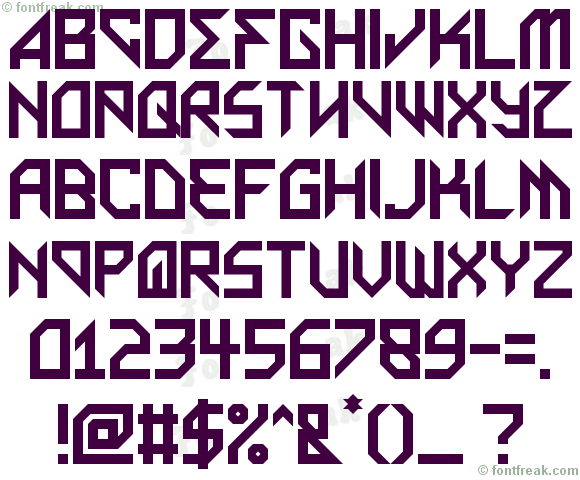
Metal Arhythmetic Regular
About Metal Arhythmetic Regular
Metal Arhythmetic Regular, designed by Andrew McCluskey, is a striking display font that falls into the decorative category. Its unique aesthetic is characterized by bold, geometric forms that evoke a sense of modernity and edginess. The font features a consistent stroke weight, enhancing its readability while maintaining a strong visual impact. The spacing is well-balanced, allowing for clarity in various applications, while the angular shapes lend a dynamic quality to the overall design.
This font is particularly well-suited for a range of creative projects. It excels in settings like movie posters, where its dramatic style can captivate audiences. Additionally, it can enhance the branding of music events, capturing the essence of high-energy performances. Metal Arhythmetic Regular is also a fantastic choice for T-shirt designs, allowing graphic designers to create bold statements that stand out. Small business owners can utilize this font in promotional materials, ensuring their branding is memorable and eye-catching. Content creators looking to add flair to their projects will find this font an invaluable asset.
What truly sets Metal Arhythmetic Regular apart is its ability to blend artistic flair with functional design. Its distinctive style not only captures attention but also communicates a strong visual message, making it a standout choice for anyone aiming to elevate their design work. For those interested, the Metal Arhythmetic Regular font free download is available, allowing users to incorporate this exceptional typeface into their creative arsenal.